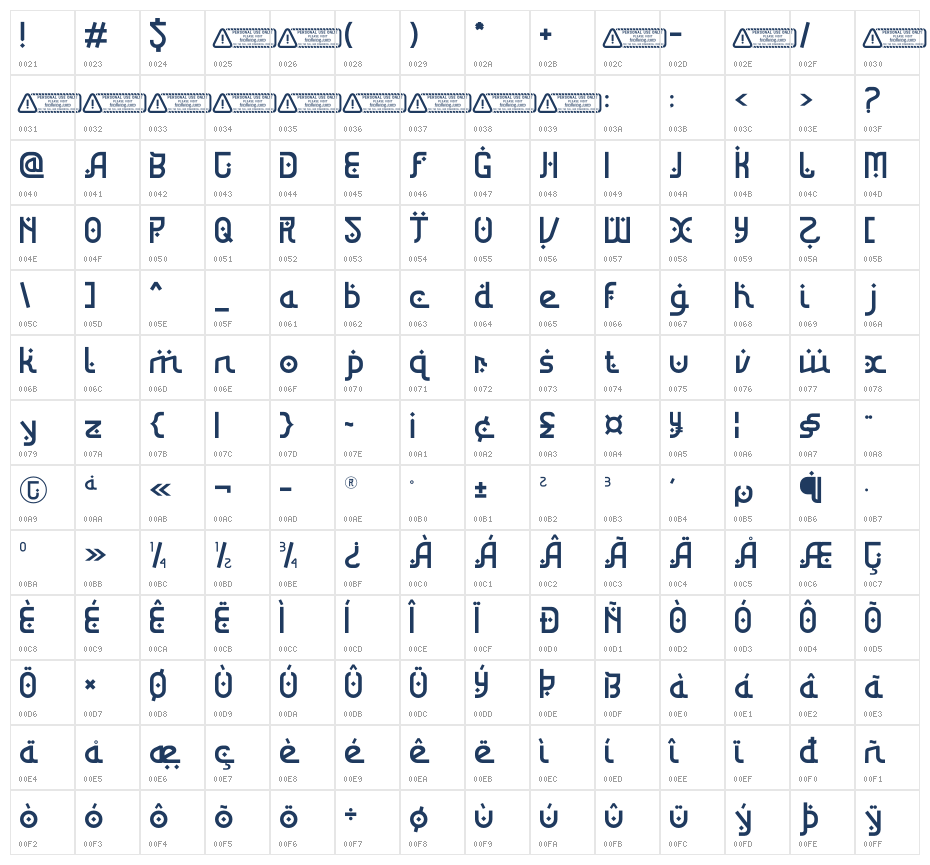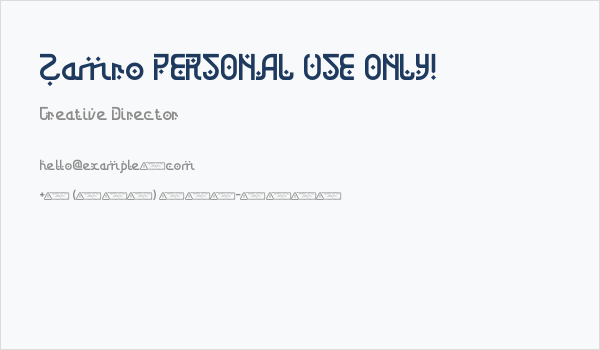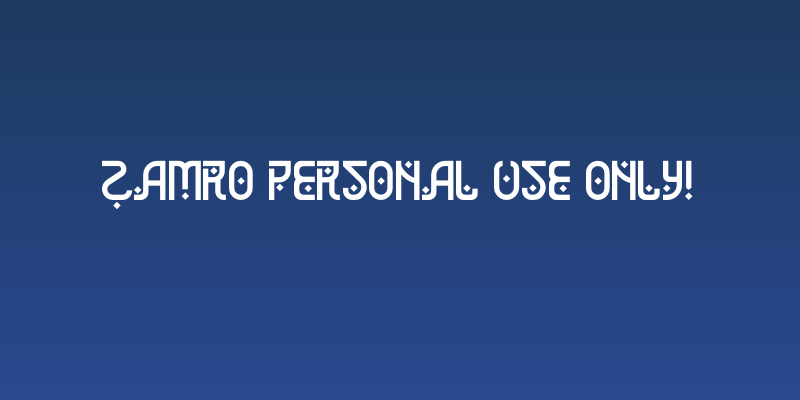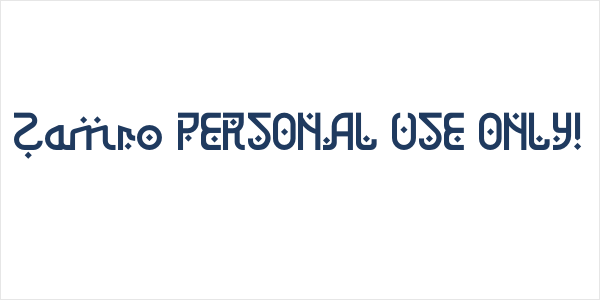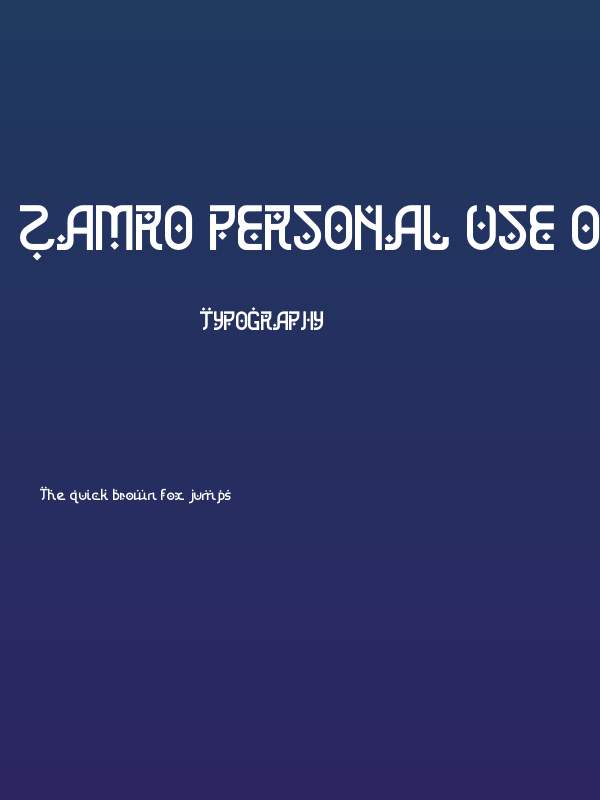
Zamro PERSONAL USE ONLY! Font
Zamro PERSONAL USE ONLY! Description
A geometric, modern display font with angular shapes and distinctive stylized characters.
| Overall Style | Modern, Geometric |